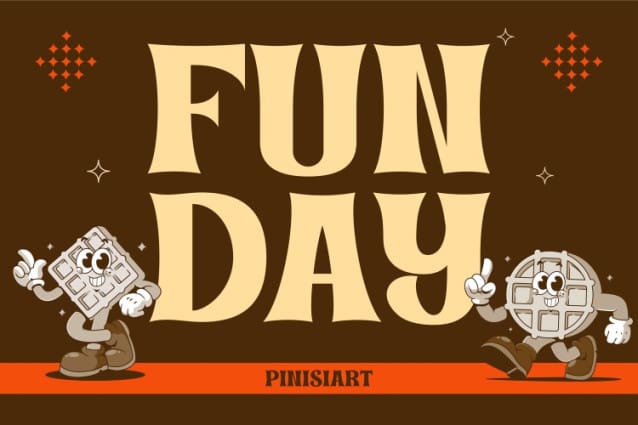
Funday Display Font
Funday Display Font is a cheerful and dynamic typeface that draws inspiration from the playful aesthetics of mid-20th-century design. With bold, curvy letterforms and a lively retro personality, FUNDAY evokes joy and nostalgia. The font stands out with its strong decorative serifs and smooth curves, making it perfect for designs that feel both vintage and vibrant.
The designers crafted FUNDAY’s character set to ensure maximum legibility while preserving its quirky and fun appeal. Its bold weight and clean structure suit headlines, logos, or branding that demand attention. Warm, rounded edges and balanced proportions give it a friendly vibe, while subtle decorative details add a touch of retro charm. Whether paired with modern graphics or used to recreate a classic 70s look, FUNDAY turns any project into a visual delight.
FUNDAY adapts effortlessly to a variety of creative uses. Its whimsical nature enhances bright color palettes and playful illustrations. This versatility allows it to breathe life into designs while guaranteeing readability and visual impact in both print and digital formats.